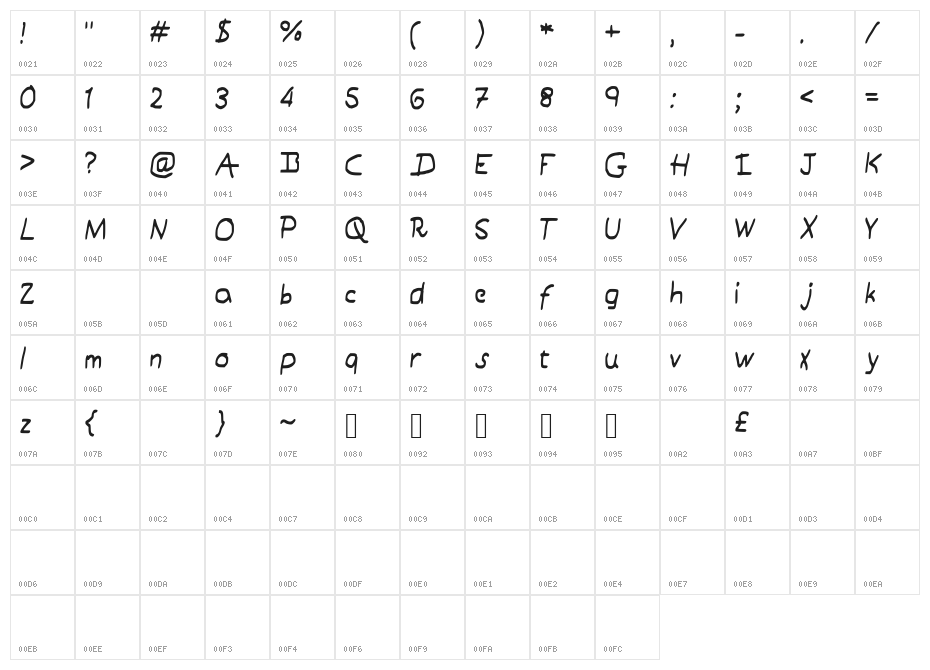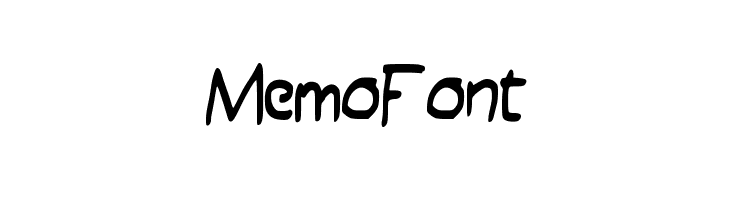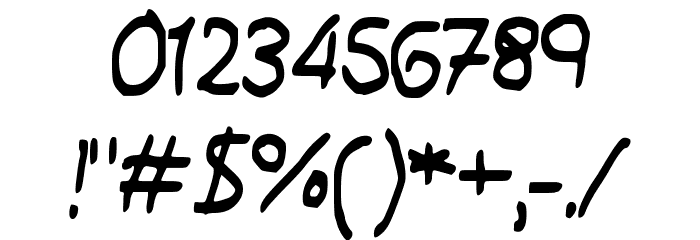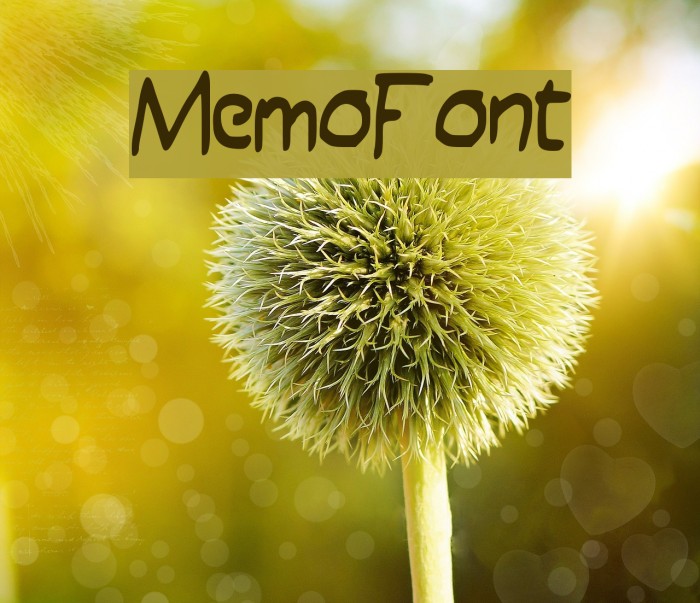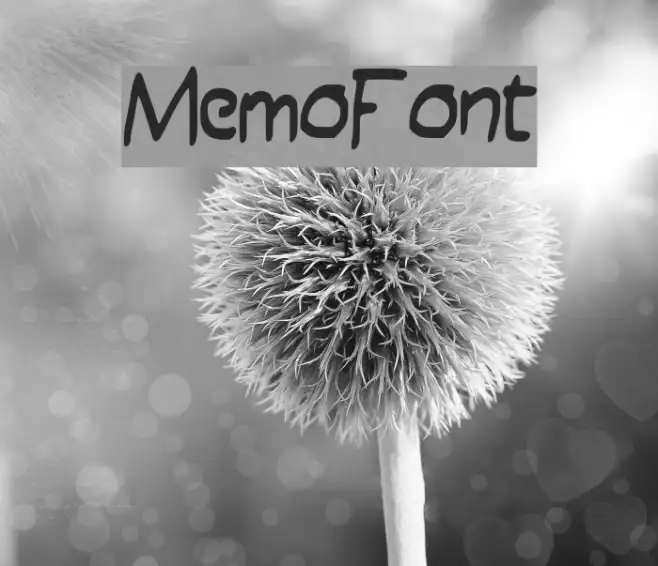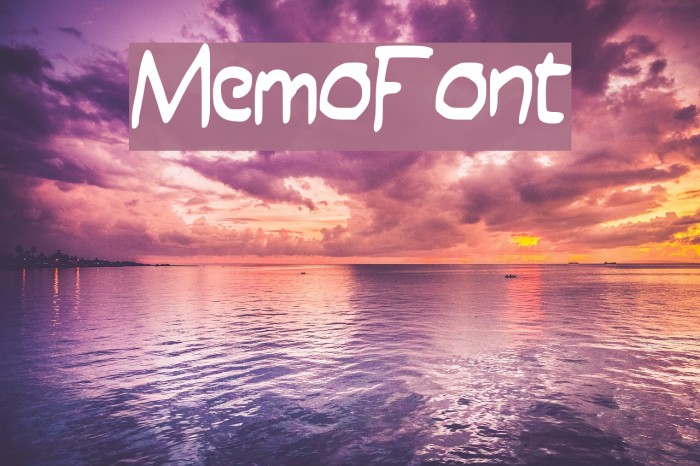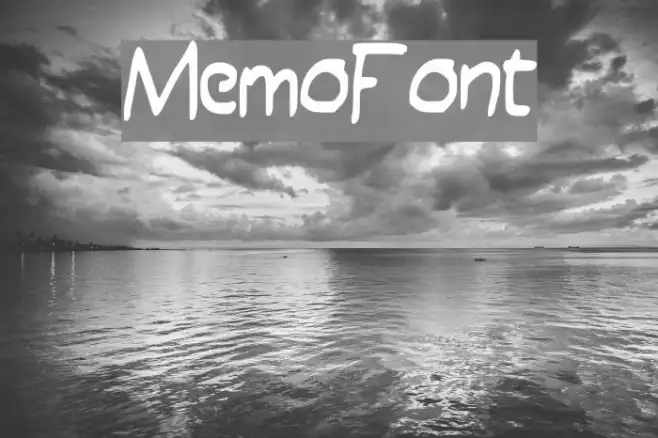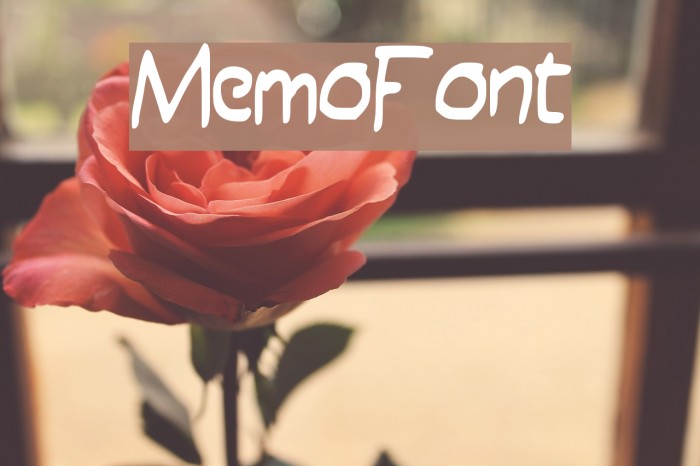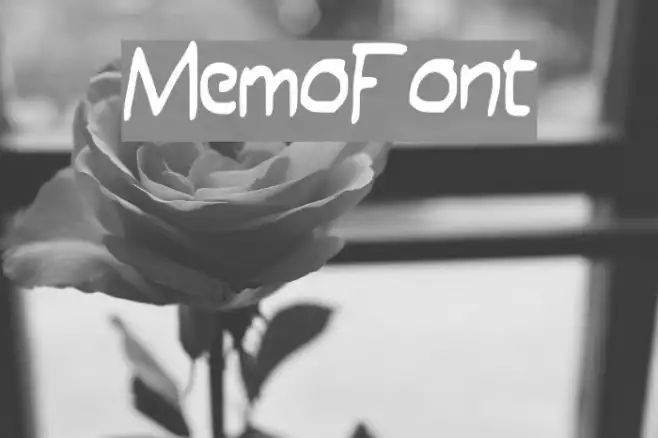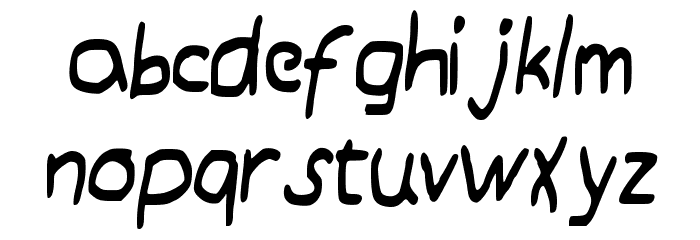
MemoFont Font
MemoFont Description
This font features a playful and informal style, characterized by its handwritten appearance. The letters have a slightly uneven baseline, giving it a casual and approachable feel. The strokes are consistent in thickness, providing a uniform look across all characters. The uppercase letters are bold and prominent, while the lowercase letters maintain a friendly and inviting tone. The numerals are clear and easy to read, matching the overall style of the alphabet. Special characters are well-integrated, maintaining the font's cohesive design. This font is ideal for projects that require a personal touch or a relaxed aesthetic.
| Use Case | Headlines, Informal text, Invitations |
| Proposed Projects | Ideal for greeting cards, invitations, children's books, and casual branding. |